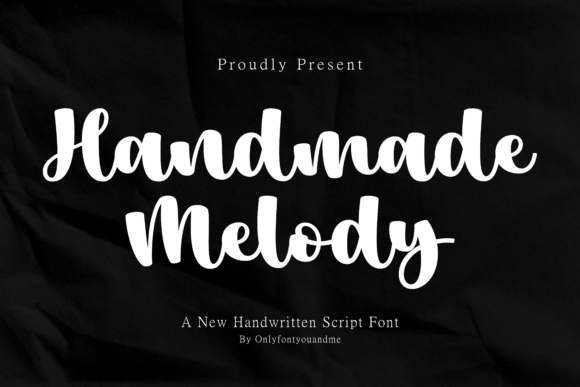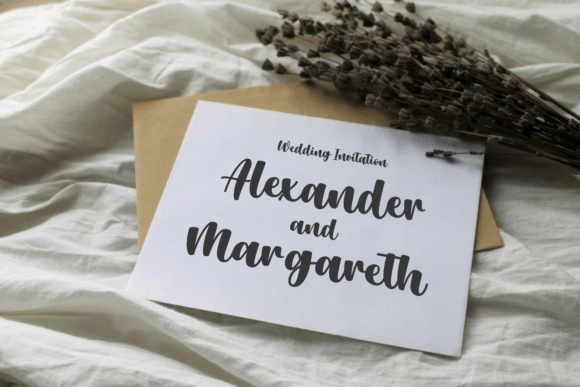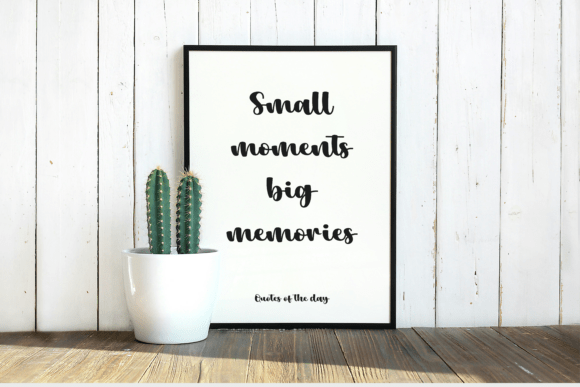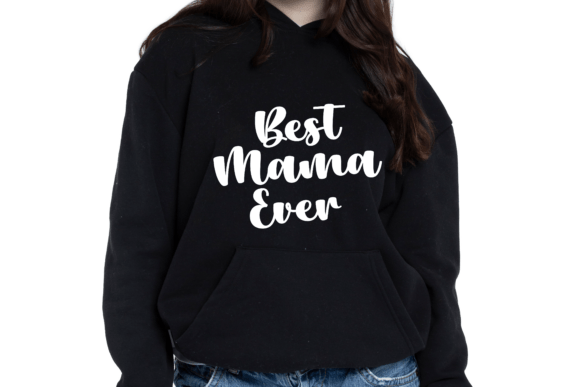
Handmade Melody Font: A Cute Script for Wedding & DIY Designs
About the Handmade Melody Font
Unleash your creativity with Handmade Melody Font, a versatile font perfect for a wide range of applications. Handmade Melody” is a perfect name for your font! It evokes a sense of warmth, creativity, and a personal touch, making it ideal for Mother’s Day designs. The name reflects both the organic, handcrafted feel of the letters and the lyrical, flowing nature of the strokes, which adds a melodic charm to any phrase it adorns. It sounds like a font that would beautifully capture the loving, unique spirit of handwritten messages.
Handmade Melody’s handcrafted charm makes it perfect for projects requiring a personal touch, such as wedding invitations, greeting cards, or short-form branding elements like logos and social media graphics. It excels in headlines and short text blocks where its unique character shines. However, its delicate strokes and varying letterforms make it unsuitable for body text or UI elements demanding high readability.
The font’s personality is friendly and approachable, with a hint of elegance. To complement this, consider pairing it with a clean sans-serif like Lato for a modern feel, or a classic serif like Garamond for a more traditional aesthetic. A playful script font could add another layer of personality for whimsical projects.
Avoid using Handmade Melody in contexts requiring sharp, modern minimalism or high levels of readability over extended text. Its organic nature is best showcased in smaller applications where its individual letterforms can be appreciated.
Handmade Melody Font Usage Examples
Handmade Melody Font Example